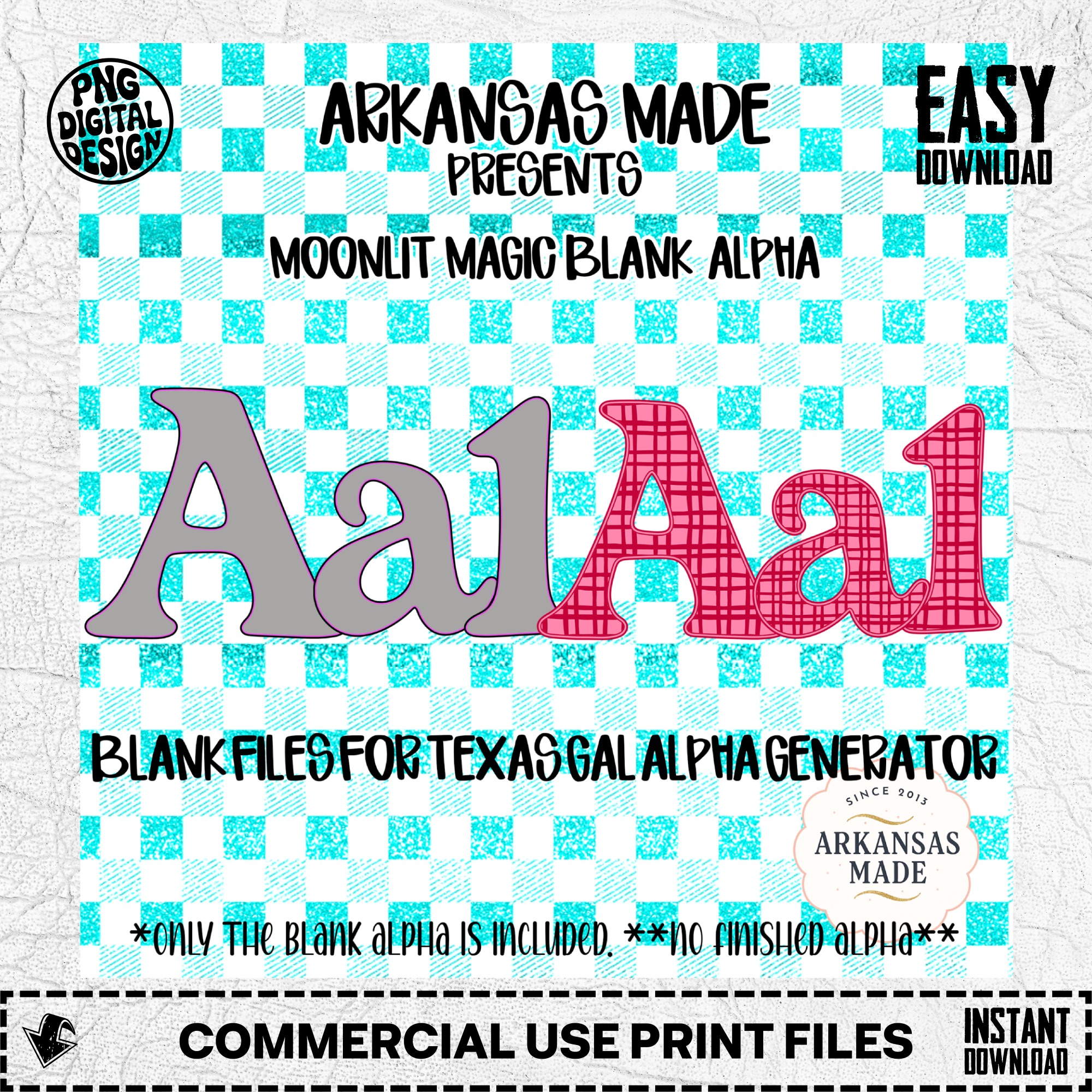
Unleash your creativity with these versatile Blank Digital Fillable Alphas, specifically designed for the Texas Gal Alpha Generator, perfect for custom crafts. These customizable blank letter files provide the ultimate foundation for crafting unique and personalized projects. Ideal for digital designers, small business owners, and DIY enthusiasts, you can effortlessly create stunning patterned alphabets for shirts, tumblers, and more. A fantastic resource for expanding your design toolkit, these files are a must-have for anyone passionate about custom sublimation and digital artistry.